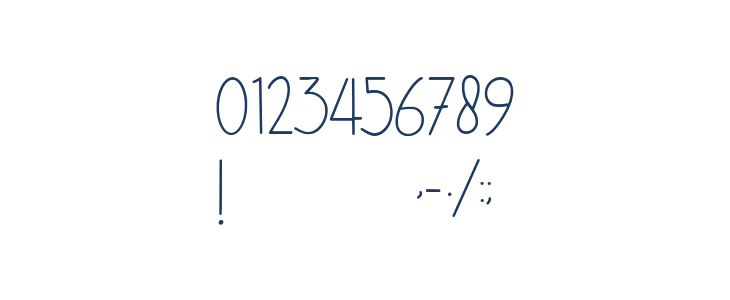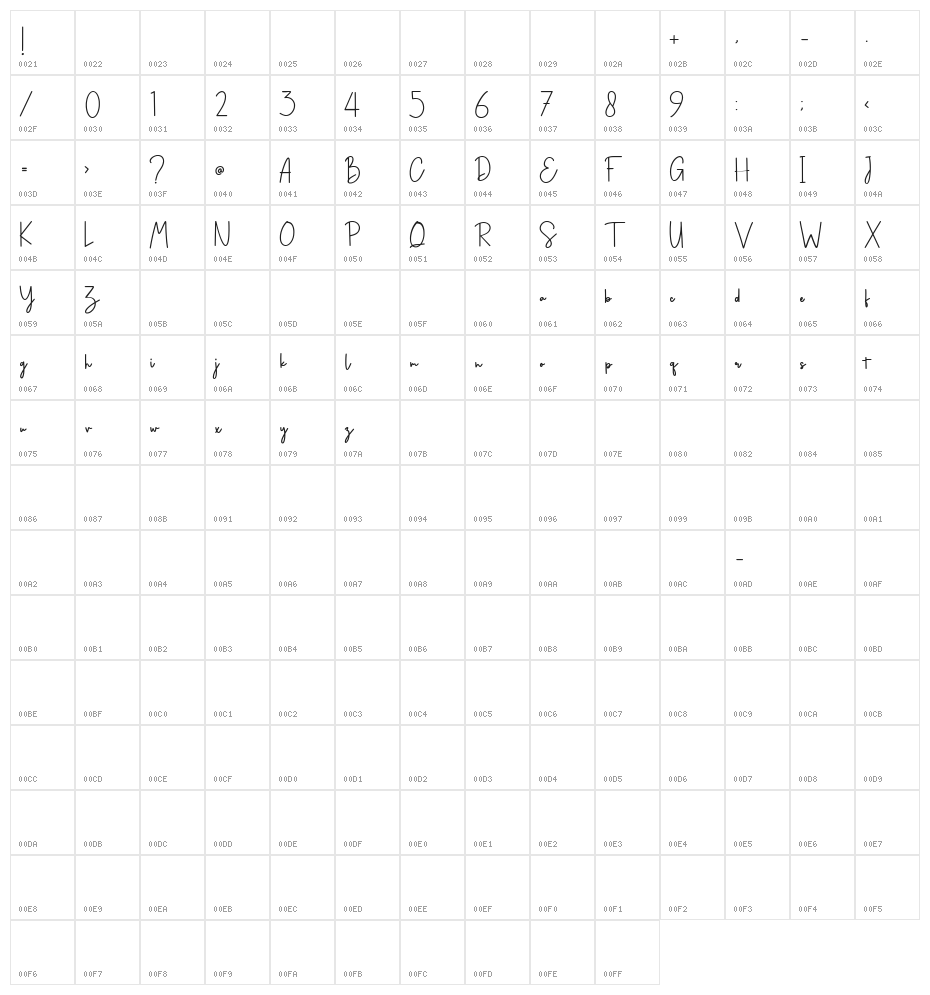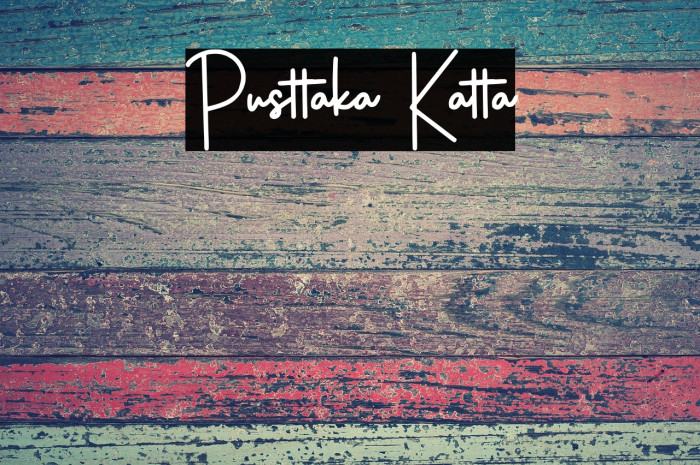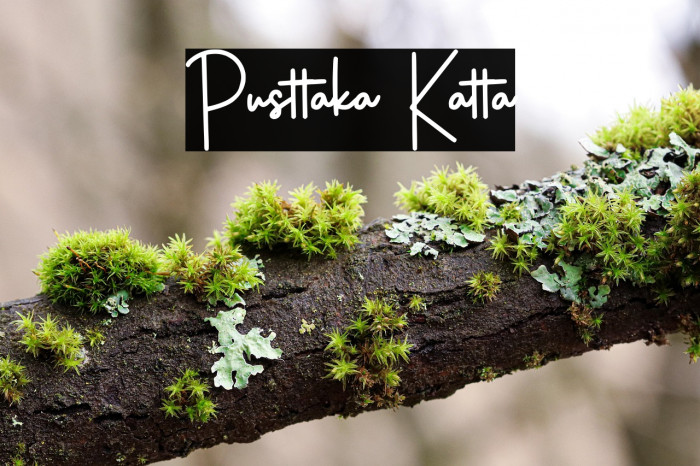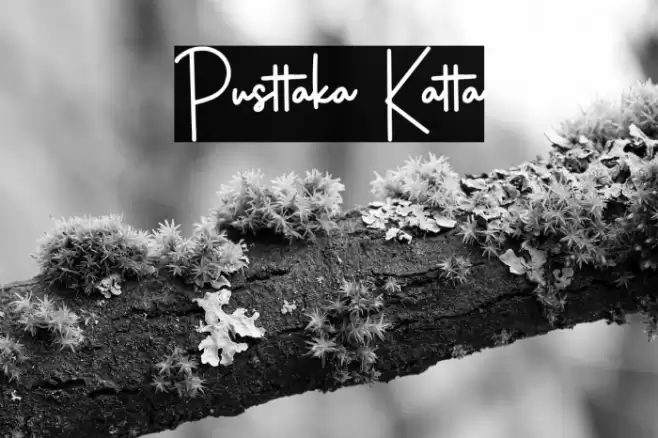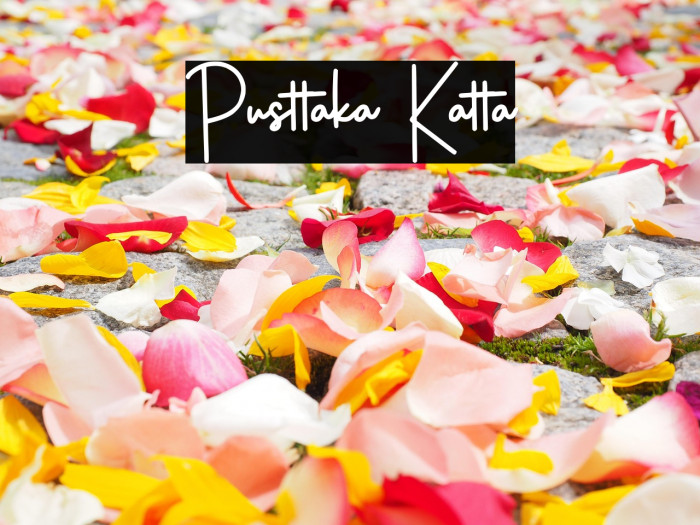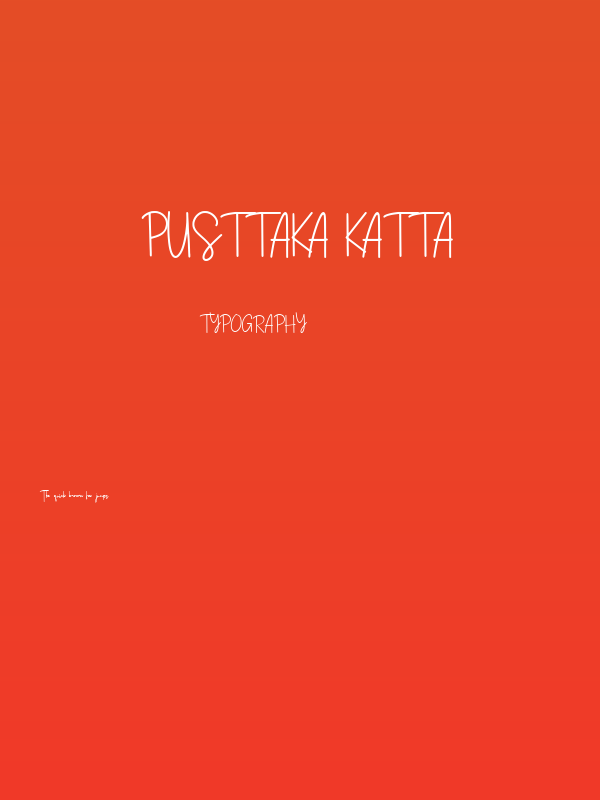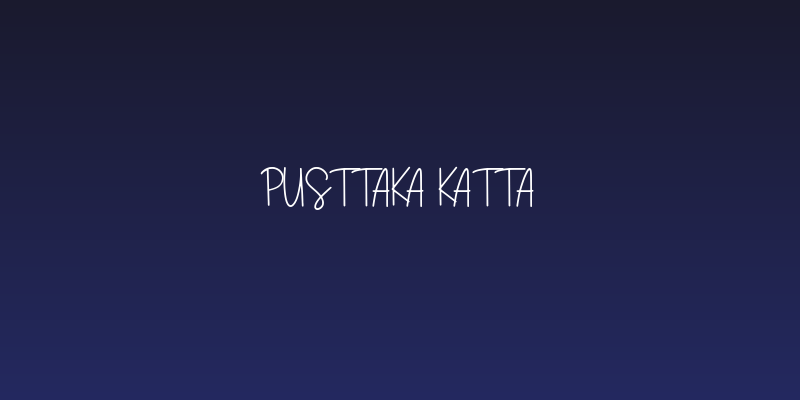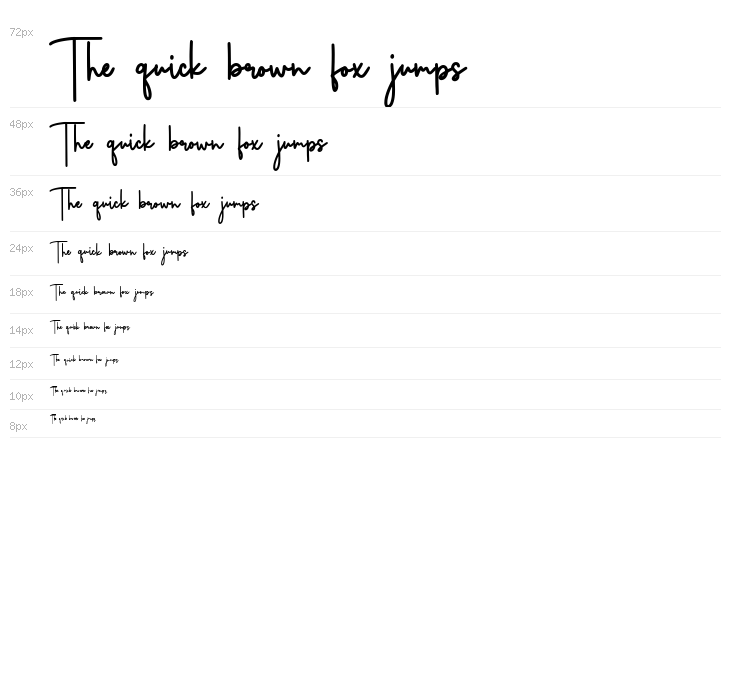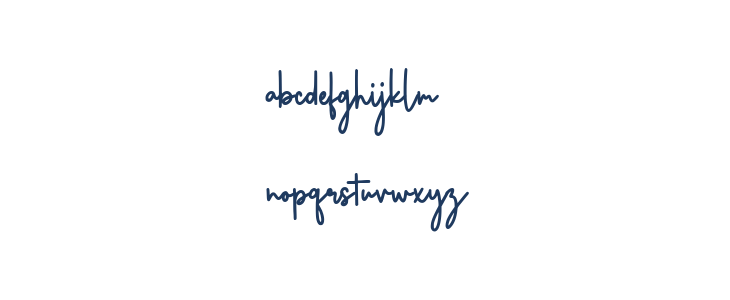
Pusttaka Katta Font
Pusttaka Katta Description
This font features a playful and whimsical handwritten style, characterized by its flowing and slightly irregular letterforms. The uppercase letters are tall and narrow, with a consistent stroke width that gives them a clean and modern appearance. The lowercase letters maintain the same playful aesthetic, with some letters featuring unique loops and curves that add to the font's charm. The numbers are straightforward and align well with the overall style, while the special characters retain the same playful quality. This font is ideal for projects that require a personal touch, such as invitations, greeting cards, or creative branding.
| Overall Style | Playful, Modern |
| Proposed Projects | Ideal for invitations, greeting cards, creative branding, and personal projects. |